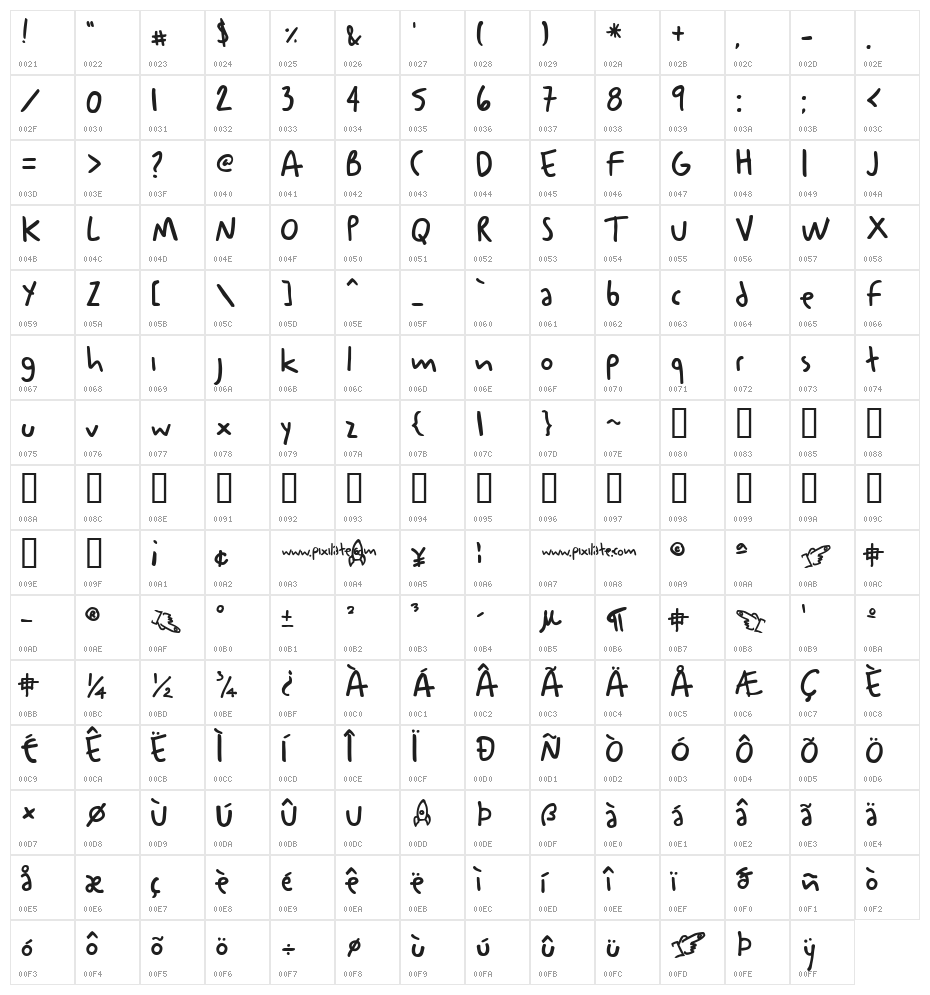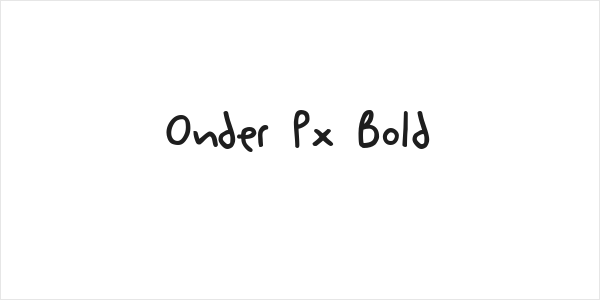
Onder Px Bold Font
Onder Px Bold Description
This font features a playful and informal handwritten style, characterized by its bold and rounded letterforms. Each character is crafted with a consistent stroke width, giving it a cohesive appearance. The letters are slightly slanted, adding a dynamic and casual feel. The uppercase and lowercase letters are well-balanced, with a natural flow that mimics authentic handwriting. The numerals and special characters maintain the same playful aesthetic, making the font versatile for various creative projects. Its boldness ensures readability while retaining a friendly and approachable vibe.
| Proposed Projects | Ideal for children's books, greeting cards, casual branding, and playful social media graphics. |